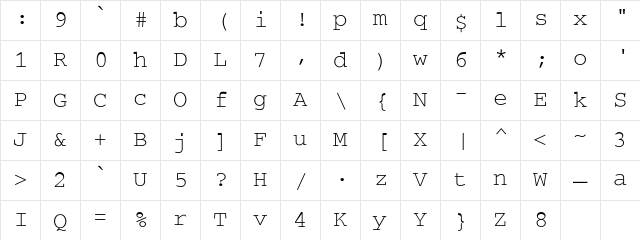
Complete SecretCode-Normal Regular glyph index. Displaying only characters natively supported by SecretCode-Normal Regular font.
SecretCode-Normal uses fixed-width spacing throughout, giving it the structured, systematic character associated with coding environments and technical documentation.
Pro Tip: Use SecretCode-Normal with slightly increased line-height for extended reading - fixed-width spacing can feel dense in longer passages without extra breathing room.